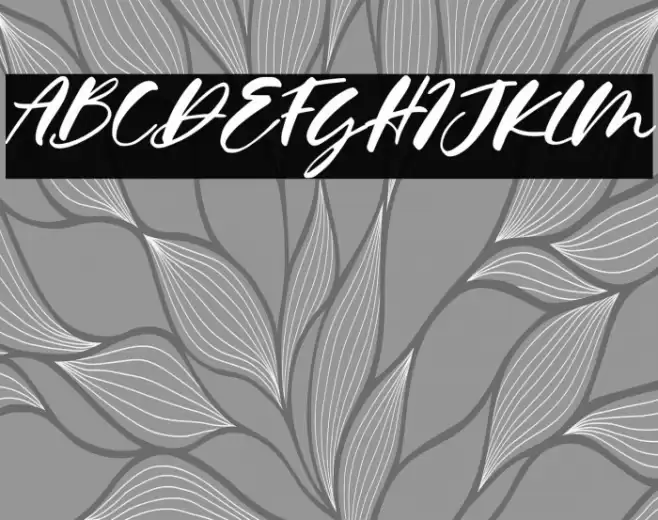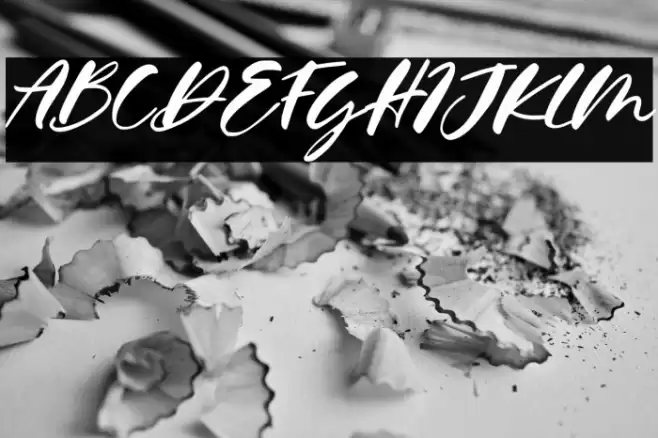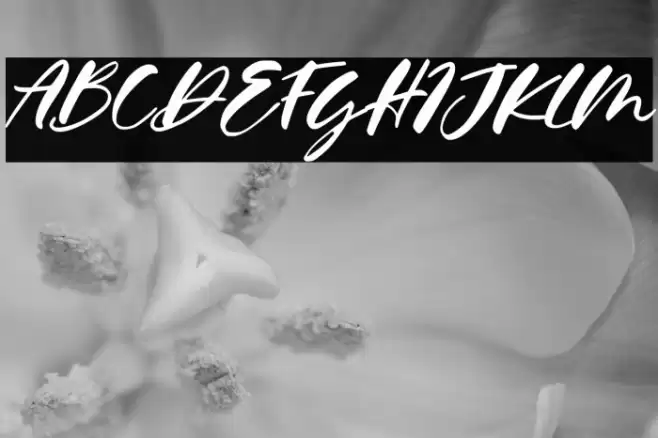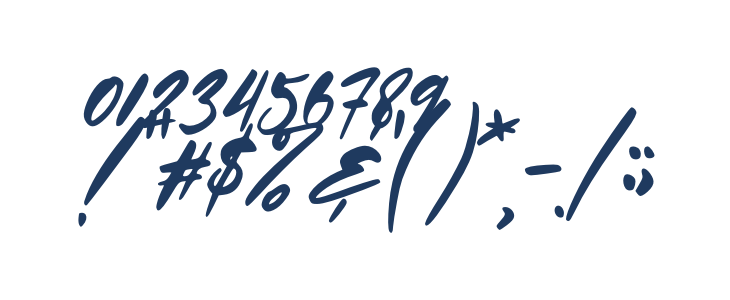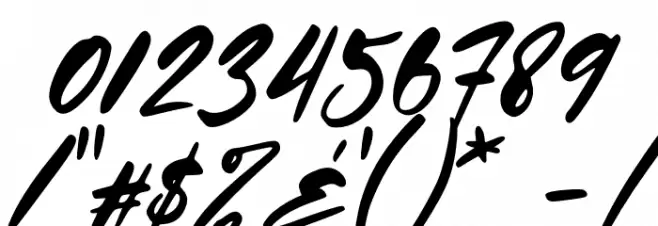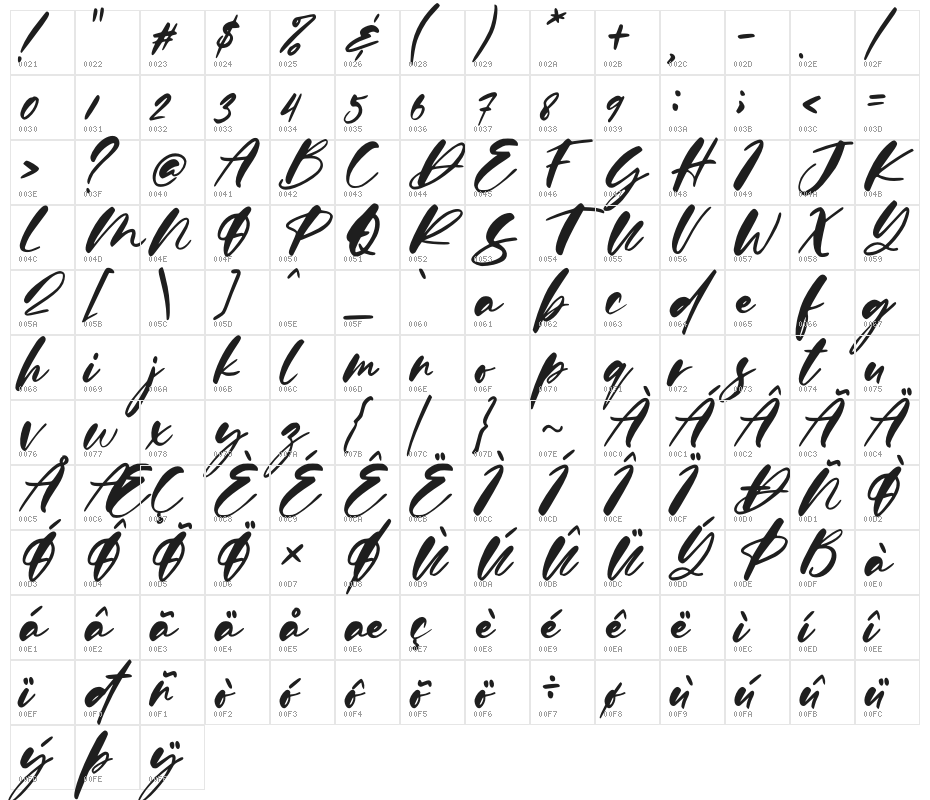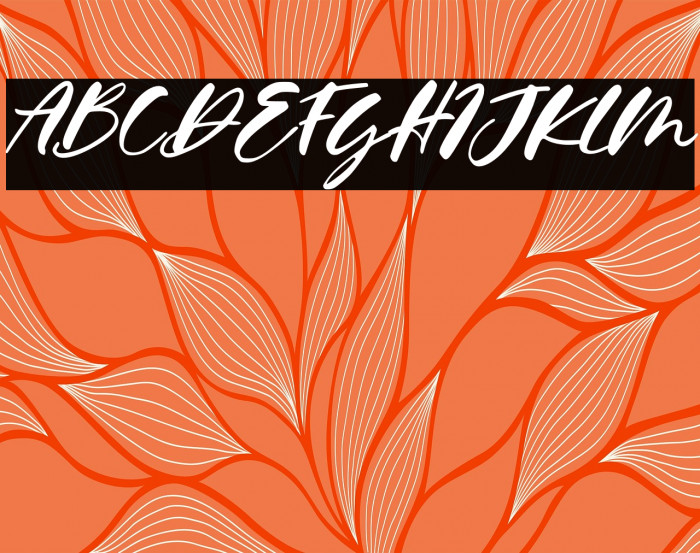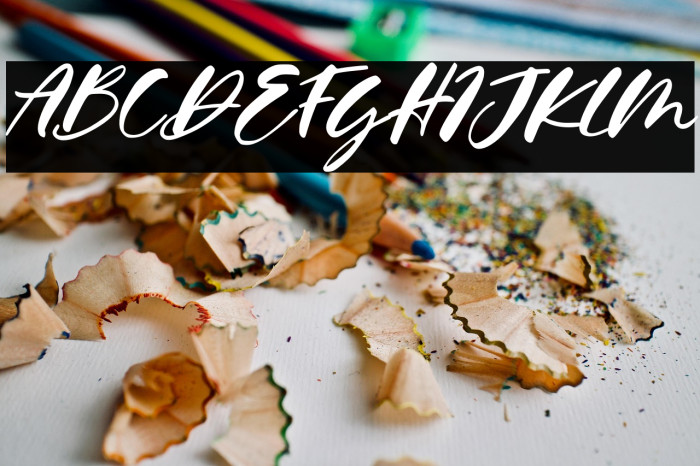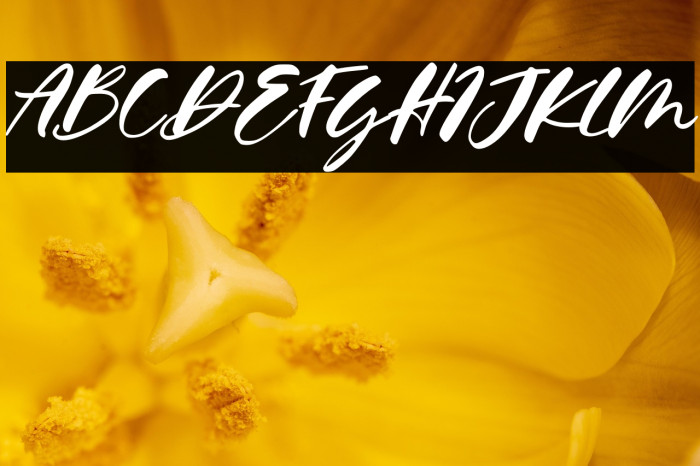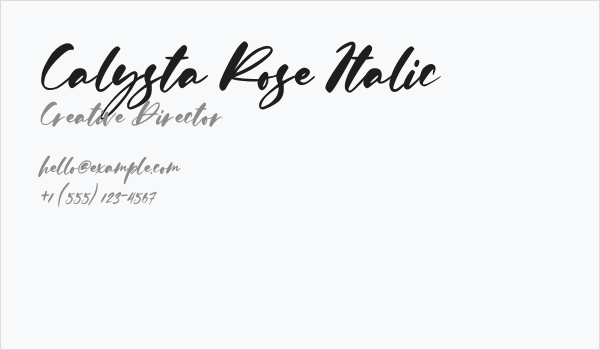
Calysta Rose Italic Font
Calysta Rose Italic Description
This font features a dynamic and flowing script style, characterized by its elegant and fluid letterforms. The strokes are bold and expressive, with a natural handwritten feel that adds a personal touch to any design. The uppercase and lowercase letters are well-balanced, with a slight slant that enhances the overall graceful appearance. The numerals and special characters maintain the same lively and artistic quality, making this font versatile for various creative applications.
A bold, expressive script font with a fluid, handwritten style from Uncategorized fonts.
- Font: Calysta Rose Italic
- Proposed Projects: Ideal for wedding invitations, greeting cards, branding projects, and any design that requires a personal and artistic touch.
- Use Case: Logos, Invitations, Greeting Cards